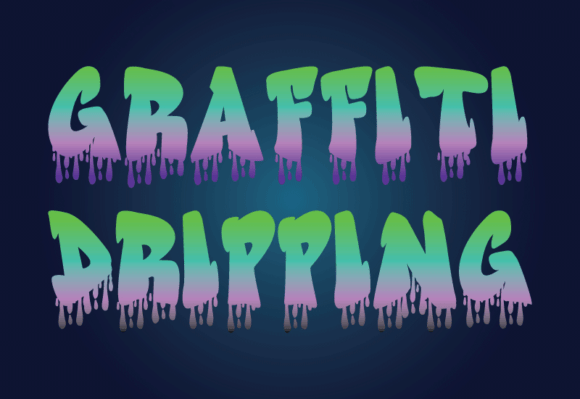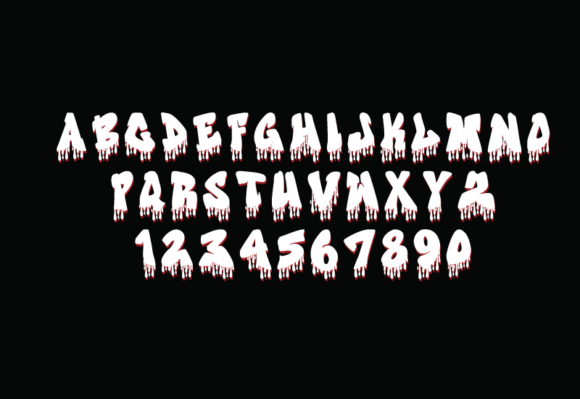
Unleash Your Creativity with the Graffiti Dripping Font
Are you a designer, artist, or crafter looking for a unique and bold font to add an edgy touch to your creative projects? Look no further than the Graffiti Dripping Font. This striking display typeface is inspired by the raw energy of street art, making it perfect for a wide range of applications, from posters and album covers to urban branding, event flyers, t-shirt designs, and more.
The Essence of Graffiti Culture
The Graffiti Dripping Font is a masterful blend of graffiti culture and modern design aesthetics. Each glyph is carefully crafted with dripping paint effects, giving your text a dynamic, rebellious, and authentic street-style look. The font’s unique dripping details make it stand out in the graffiti and display font categories, adding a touch of urban grit to any artwork.
With the Graffiti Dripping Font, the creative possibilities are endless. Use it to:
- Create eye-catching posters and flyers for events, concerts, or exhibitions
- Design bold and edgy album covers that reflect the music’s genre and style
- Develop a strong brand identity for urban clothing lines, skate shops, or streetwear brands
- Design striking t-shirt graphics that make a statement
- Add a touch of street art to your artwork, illustrations, or digital designs
What Sets the Graffiti Dripping Font Apart
So, what makes the Graffiti Dripping Font so special? Here are a few key features that set it apart:
- Unique Dripping Effects: Each glyph is styled with realistic dripping paint effects, giving your text a dynamic and edgy look
- Bold and Artistic: The font’s bold and artistic design makes it perfect for display purposes, such as headings, titles, and logos
- High-Quality Design: The font is carefully crafted with attention to detail, ensuring a high-quality design that will elevate your artwork
Tips for Using the Graffiti Dripping Font
To get the most out of the Graffiti Dripping Font, here are a few tips to keep in mind:
- Experiment with Colors: The font looks great in bold, bright colors, but don’t be afraid to experiment with different color combinations to find the perfect look for your project
- Play with Textures: Add an extra layer of depth to your design by combining the font with textures, patterns, or images
- Keep it Bold: The Graffiti Dripping Font is designed to make a statement, so don’t be afraid to use it in bold and eye-catching ways
The Graffiti Dripping Font is a bold and artistic display typeface that is sure to elevate your creative projects. With its unique dripping effects, bold design, and high-quality craftsmanship, this font is perfect for designers, artists, and crafters looking to add an edgy touch to their artwork. Whether you’re working on a poster, album cover, or t-shirt design, the Graffiti Dripping Font is the perfect choice for anyone looking to unleash their creativity and make a statement.